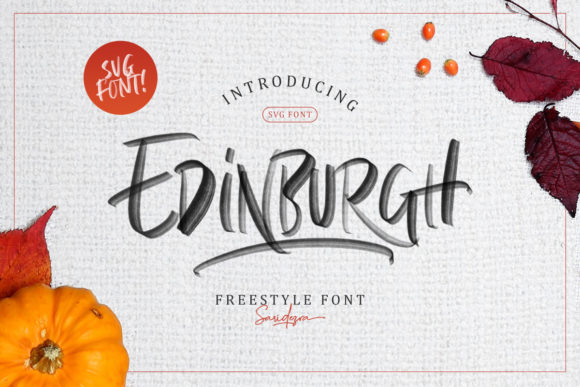
Edinburgh Font
Download Edinburgh Font for free! Created by saridezra and published by Hersh Meadows, this colorful font family is perfect for adding a unique touch to your designs.
Dive into the world of Edinburgh Font, the enchanting handmade font crafted by the visionary saridezra. Immerse yourself in a symphony of colorful strokes, where creativity flourishes and imagination knows no bounds. With its captivating SVG format and the versatility of OTF and TTF companions, Edinburgh Font is the ultimate tool for unleashing artistic expression.
Unlock the boundless potential of Edinburgh Font and ignite your creative spark. Let your words dance across the page, infused with a vibrant personality that captivates and inspires. Embrace the beauty of handwritten notes, stunning logos, personalized invitations, and designs that emanate warmth and charm.
Step into a realm of infinite possibilities, where your imagination reigns supreme. Craft eye-catching social media posts that demand attention, leaving a lasting impression on your audience. Transform your digital presence with bespoke headers, footers, and branding elements that reflect your unique style.
With Edinburgh Font, ordinary becomes extraordinary. Elevate your designs to new heights, crafting brochures, flyers, and presentations that leave a lasting impression. Create invitations that invite guests into a world of wonder, and design posters that ignite curiosity and spark conversation.
Edinburgh Font is not just a font; it's an experience. It's the power to transform the mundane into the magnificent, the ordinary into the extraordinary. Embrace the artistry, the vibrancy, and the sheer joy of creation with Edinburgh Font. Let your imagination soar and watch as your ideas take flight.